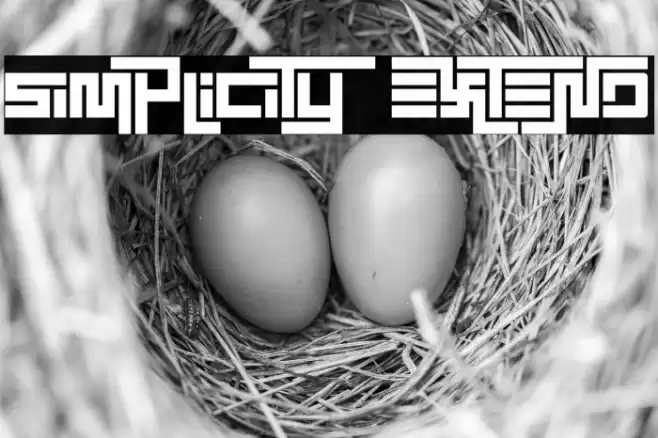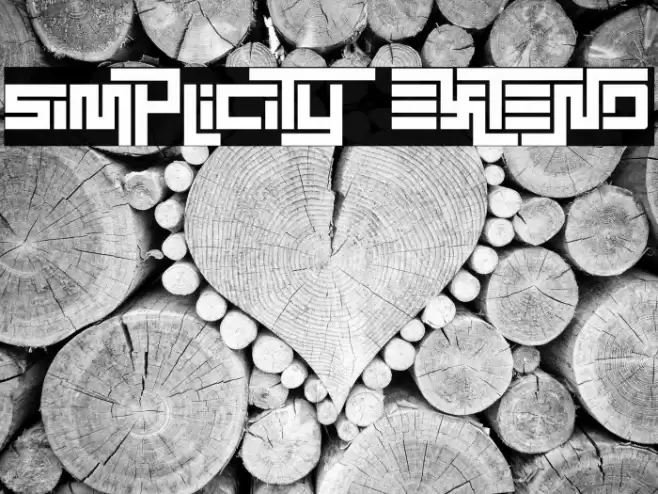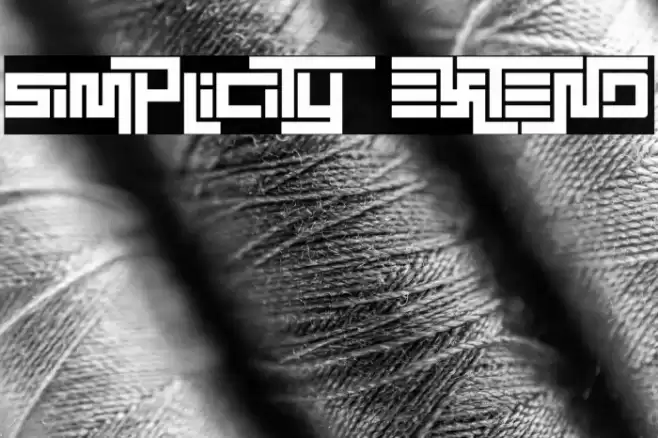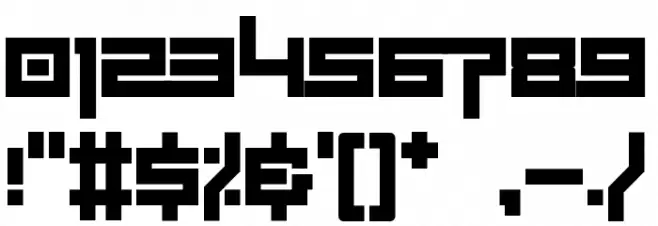
Simplicity Extend Font
Simplicity Extend Description
This font features a bold, geometric design with a futuristic and digital aesthetic. The characters are constructed with thick, block-like lines that create a sense of strength and modernity. Each letter and number is distinct, with sharp angles and a consistent height, contributing to a uniform appearance. The uppercase and lowercase letters maintain a similar structure, enhancing the cohesive look. Special characters are designed to match the overall style, ensuring versatility in various applications. The font's unique style makes it ideal for projects that require a modern, tech-inspired look.
A bold, geometric font with a futuristic and digital aesthetic from Regular fonts.
- Proposed Projects: Ideal for technology branding, video game titles, sci-fi posters, and digital interfaces.